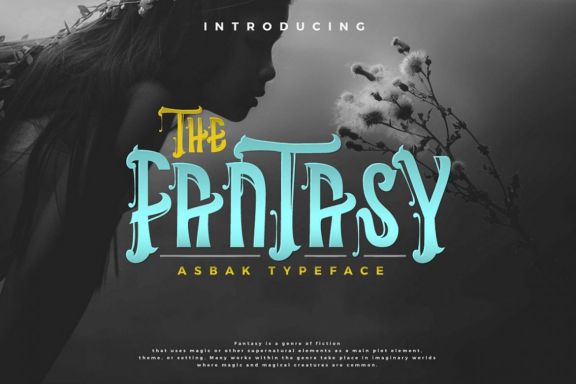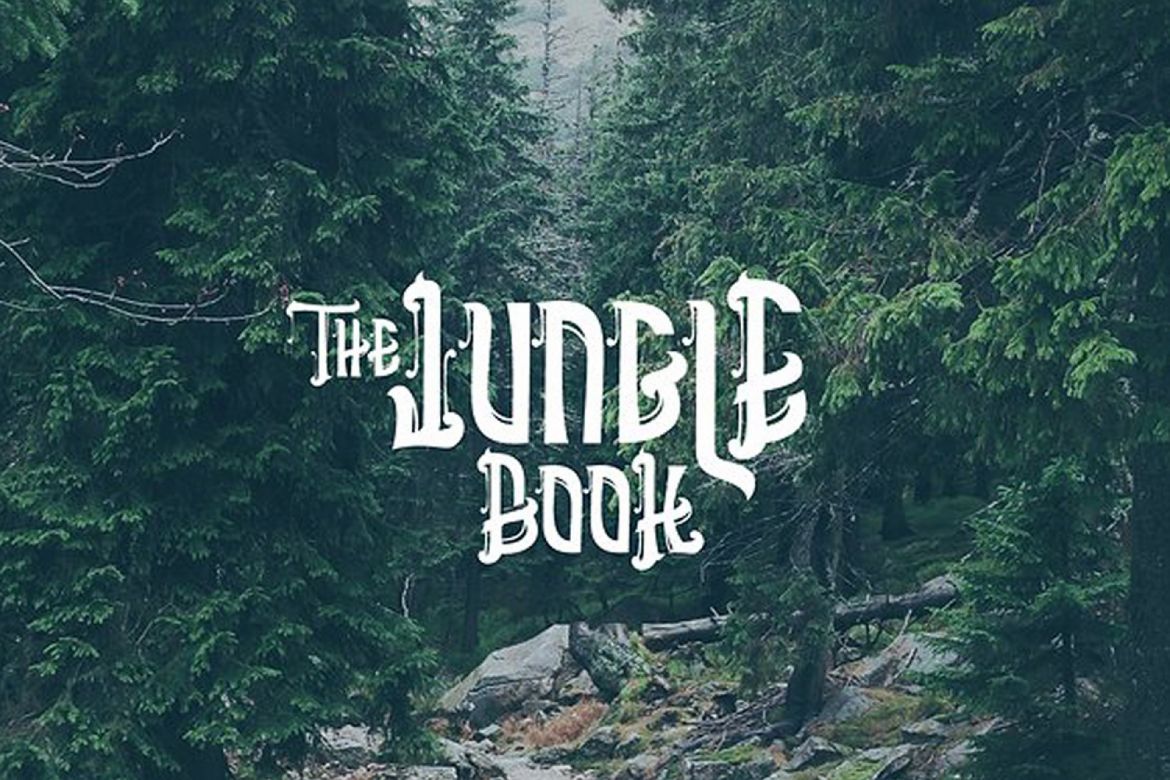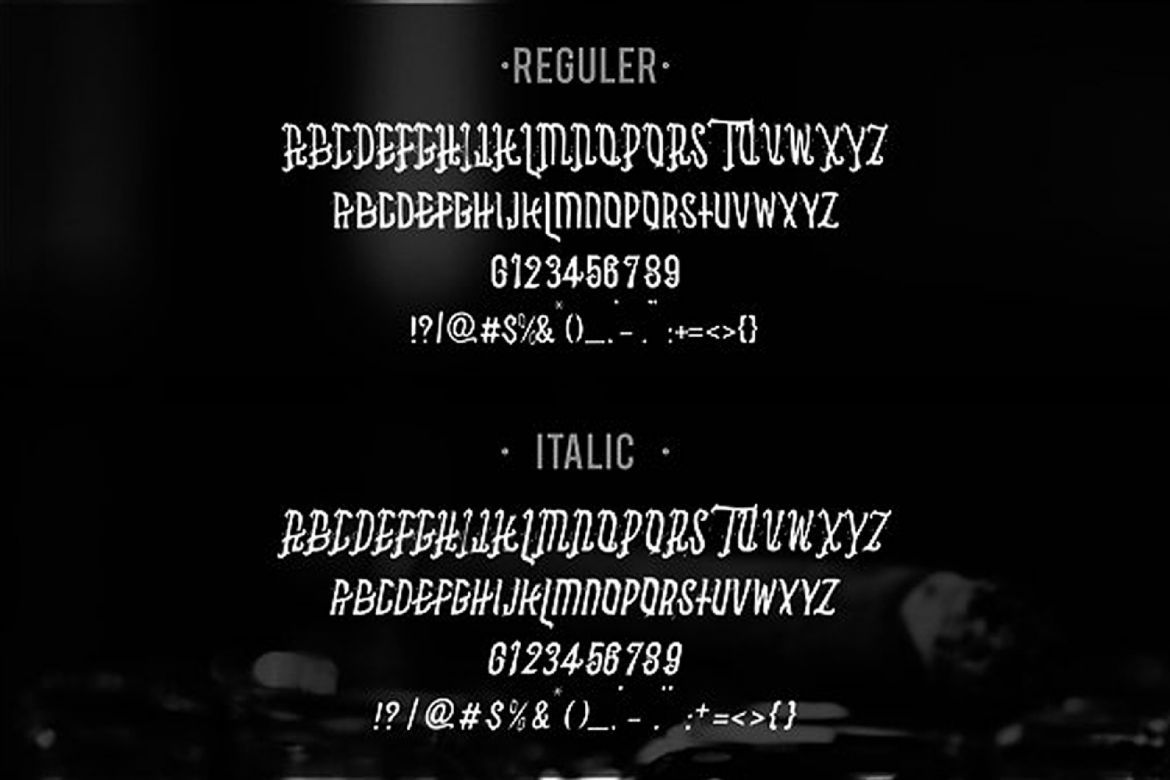
Asbak Typeface
Asbak Typeface is a display type, inspired by fantasy and vintage movie posters / album cover.
• come with 2 style (regular & italic)
• unique looks typefaces